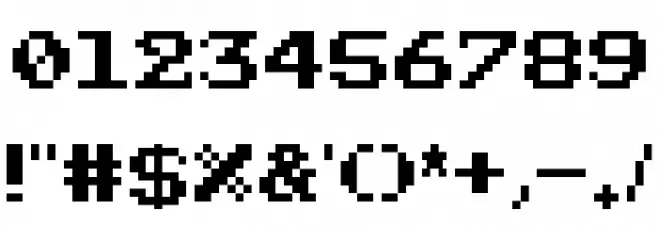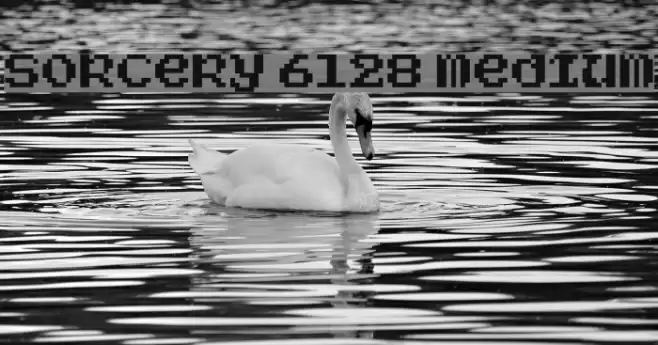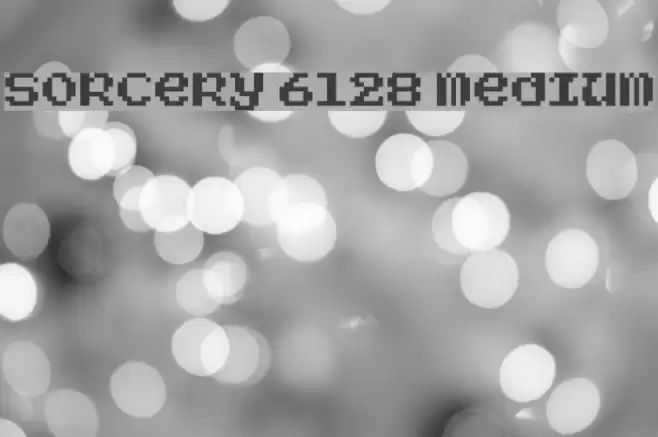
Sorcery 6128 Medium Font
Sorcery 6128 Medium Description
This font features a pixelated, blocky design reminiscent of early digital or video game typography. Each character is constructed with a consistent grid-like pattern, giving it a retro, 8-bit appearance. The uppercase and lowercase letters maintain a uniform height, contributing to a monospaced feel. The numerals and special characters follow the same stylistic approach, ensuring visual coherence across all elements. This font's nostalgic style is ideal for projects that aim to evoke a sense of vintage computing or gaming aesthetics.
| Overall Style | Vintage |
| Use Case | Logos, Headlines, Digital Art |
| Proposed Projects | Ideal for retro video games, digital art projects, or any design seeking a nostalgic, vintage tech feel. |